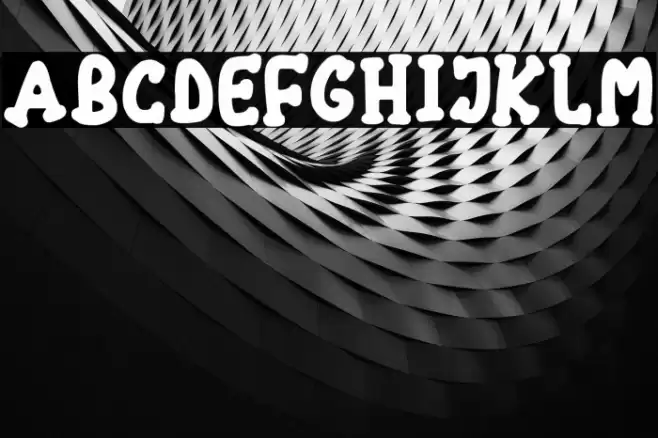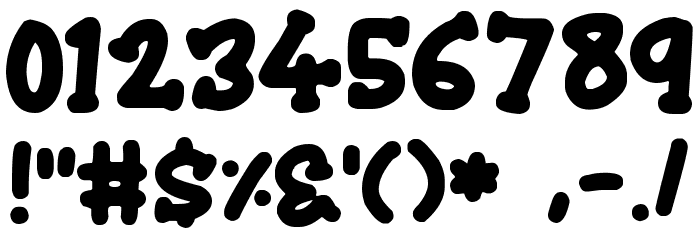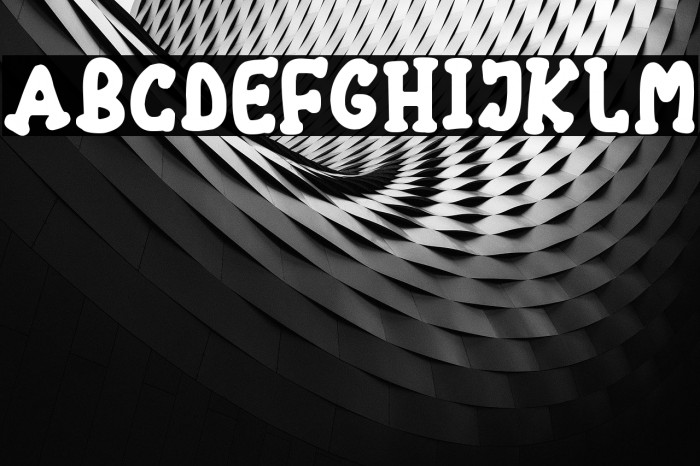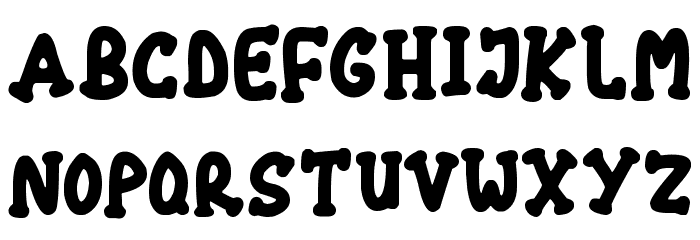
Chubby Font
Chubby Description
This playful and bold font features thick, rounded characters that exude a sense of fun and whimsy. The letters are generously spaced, enhancing readability while maintaining a chunky appearance. The font's design is consistent across both uppercase and lowercase letters, as well as numbers and special characters, all of which share the same bubbly aesthetic. The strokes are uniform in width, contributing to a cohesive and balanced look. This font is ideal for projects that require a lively and engaging visual element, such as children's books, playful branding, or eye-catching posters.
A bold, playful font with thick, rounded characters and a whimsical style from Cartoon fonts.
- Proposed Projects: Ideal for children's books, playful branding, and eye-catching posters.
- Character Spacing: Wide
- Overall Style: Playful, Whimsical